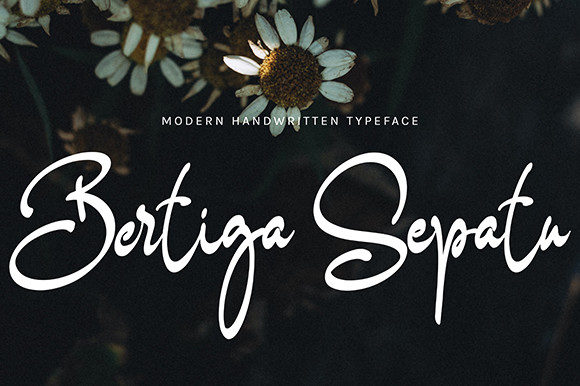
The Ultimate Guide to Bertiga Sepatu Font: Elevate Your Designs with a Touch of Casual Elegance
I’ll never forget the time I was working on a project for a client’s wedding invitation. I had the design concept all sorted out, but I was stuck on finding the perfect font. The client wanted something natural, casual, and elegant, but I just couldn’t seem to find a font that ticked all those boxes. That was until I stumbled upon Bertiga Sepatu, a beautiful handwritten font that instantly captured the essence of what I was looking for.
In this article, I’ll share my experience with Bertiga Sepatu, its features, and how to make the most of it in your designs. Whether you’re a designer, crafter, or creative hobbyist, you’ll love the versatility and charm that this font brings to the table.
An Honest Review of Bertiga Sepatu
What I Love About Bertiga Sepatu ✨
- ✅ Natural and casual look: Bertiga Sepatu has a unique, hand-crafted feel that adds a touch of warmth to any design.
- ✅ Highly versatile: This font is perfect for a wide range of design projects, from posters and flyers to invitations and print materials.
- ✅ Easy to read: Despite its casual look, Bertiga Sepatu is surprisingly legible, making it suitable for both headlines and body text.
- ✅ Unique character: The font’s distinctive character set ensures that your designs will stand out from the crowd.
While Bertiga Sepatu is an excellent font, there are a few things to keep in mind:
- 🤔 Limited formal use: Due to its casual nature, Bertiga Sepatu might not be the best choice for formal or corporate designs.
- ⚠️ May not be suitable for small text: While the font is generally legible, it may not be the best choice for very small text sizes or body text in certain contexts.
The Designer Inspiration Behind Bertiga Sepatu
Bertiga Sepatu was designed with the intention of creating a font that captures the essence of casual elegance. The designer, who remains anonymous, drew inspiration from everyday handwritten notes and signs, aiming to create a font that’s both natural and sophisticated.
| Font Name | Bertiga Sepatu Font |
| Author | Pineungtype & Missinklab |
Q: What is Bertiga Sepatu font best used for?
A: Bertiga Sepatu is perfect for designs that require a natural, casual look, such as posters, flyers, invitations, and print materials.
Q: Is Bertiga Sepatu suitable for body text?
A: While Bertiga Sepatu is legible, it might not be the best choice for long blocks of body text. However, it’s perfect for headlines, titles, and short paragraphs.
Q: Is Bertiga Sepatu available in different styles or weights?
A: The standard version of Bertiga Sepatu is available in a single weight. However, you may be able to find variations or similar fonts with different weights or styles.